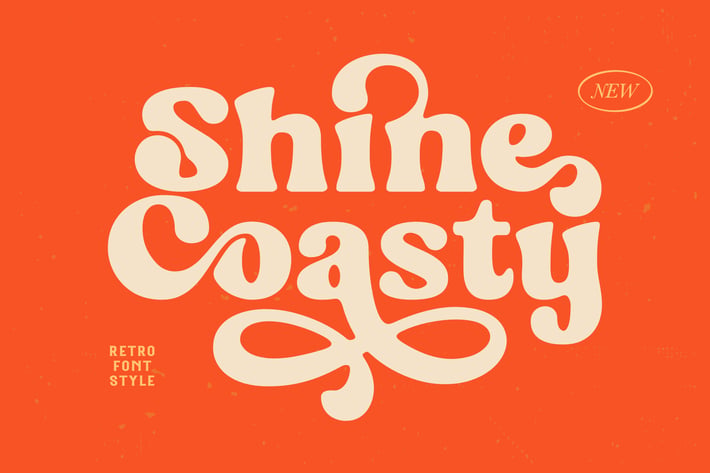
Shine Coasty Font
Shine Coasty is a serif typeface with vintage and retro look!. Equipped with all complete characters ranging from uppercase letters, lowercase letters, numbers, punctuation marks and multi-lingual support, this font is ready to be used in any project. Very suitable for Logotype, Stickers, Packaging design, Cricut Project, Headlines, Brand identity, Posters, Magazines, Books, YouTube, Instagram, Websites, Canva, Corjl or any of your creative design projects. Use this Shine Coasty font to add that special modern retro serif touch to any design idea you can think of!
Numbers & Punctuation
Alternate Character
Numbers & Punctuation
Alternate Character